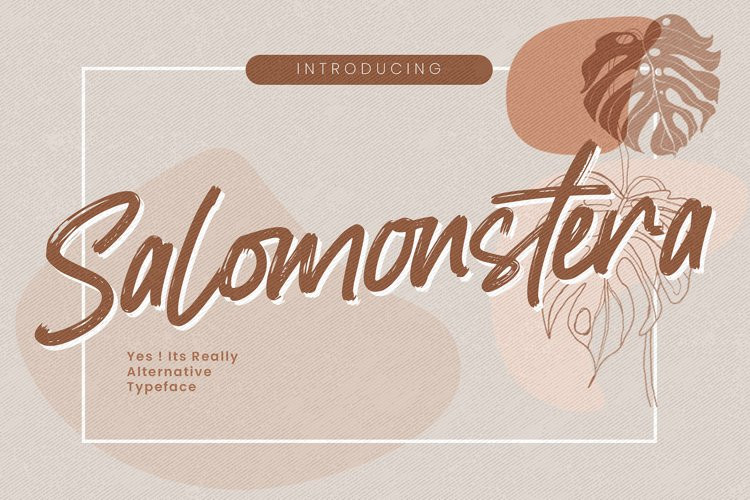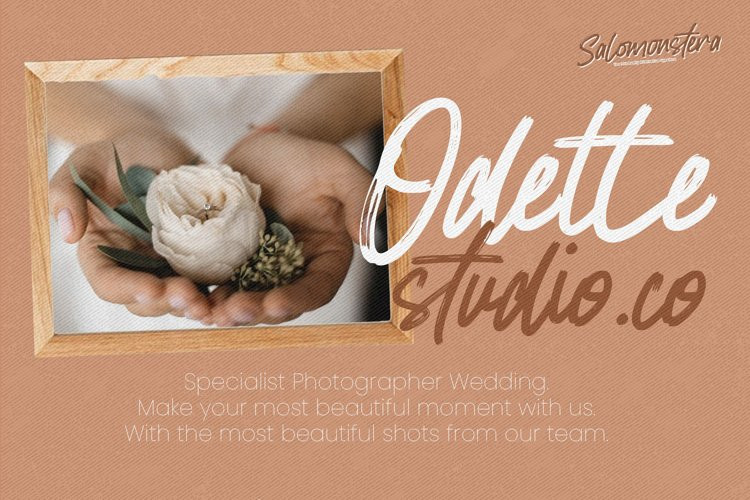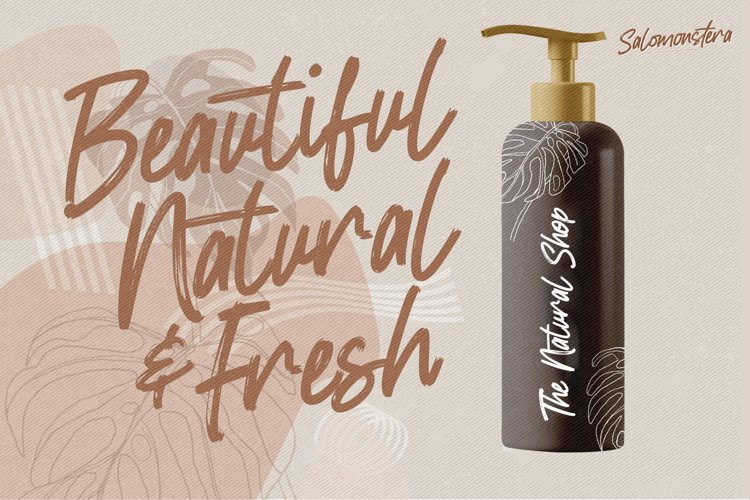
Salomonstera Font
Salomonstera FontHello Everyone, introduce our new product Salomonstera is Handmade Script Font .This Authentic brush script that is written casually and quickly. Letters are made with brushes on paper. Then scanned and carefully drawn into vector format.
That is why Salomonstera has charming, authentic and relaxed characteristic more natural look to your text with a more natural look to your text.
Salomonstera Perfect for designs,branding projects, Logo design, Quotes product packaging